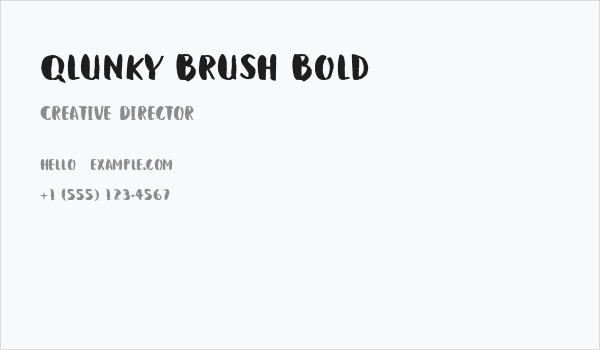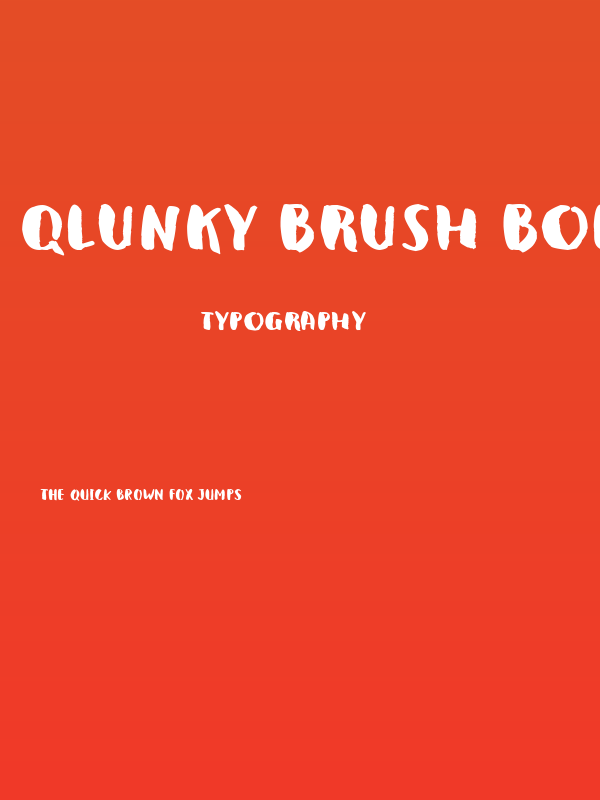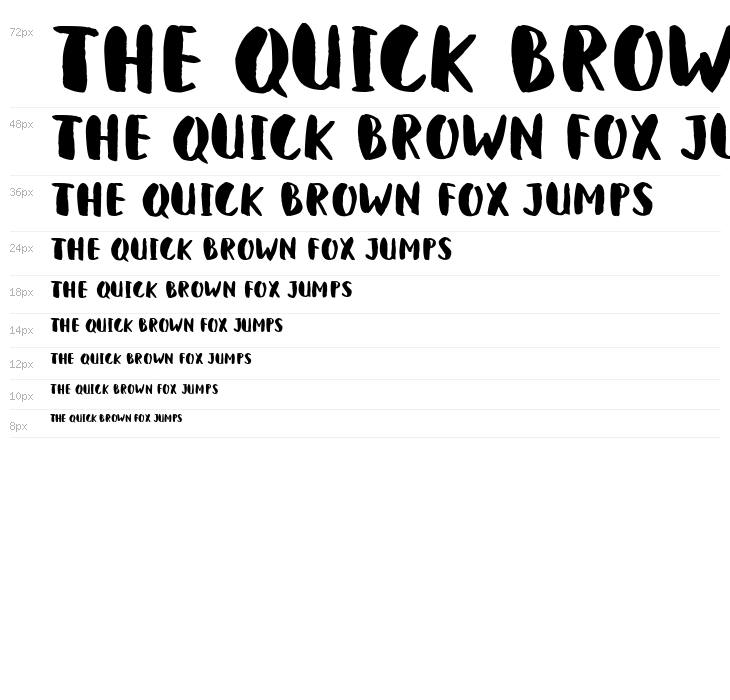
Qlunky Brush Bold Font
Qlunky Brush Bold Description
This font features a bold, brush-like style that exudes a sense of energy and dynamism. The strokes are thick and uneven, mimicking the natural flow of hand-painted letters. Each character has a distinctive, organic feel, with slight variations that add to its handcrafted appearance. The uppercase and lowercase letters maintain a consistent weight, providing a cohesive look across the alphabet. The numbers and special characters are equally bold, ensuring they stand out in any design. This font is perfect for projects that require a touch of creativity and boldness.
| Proposed Projects | Ideal for posters, logos, branding, and any design that requires a bold, artistic touch. |